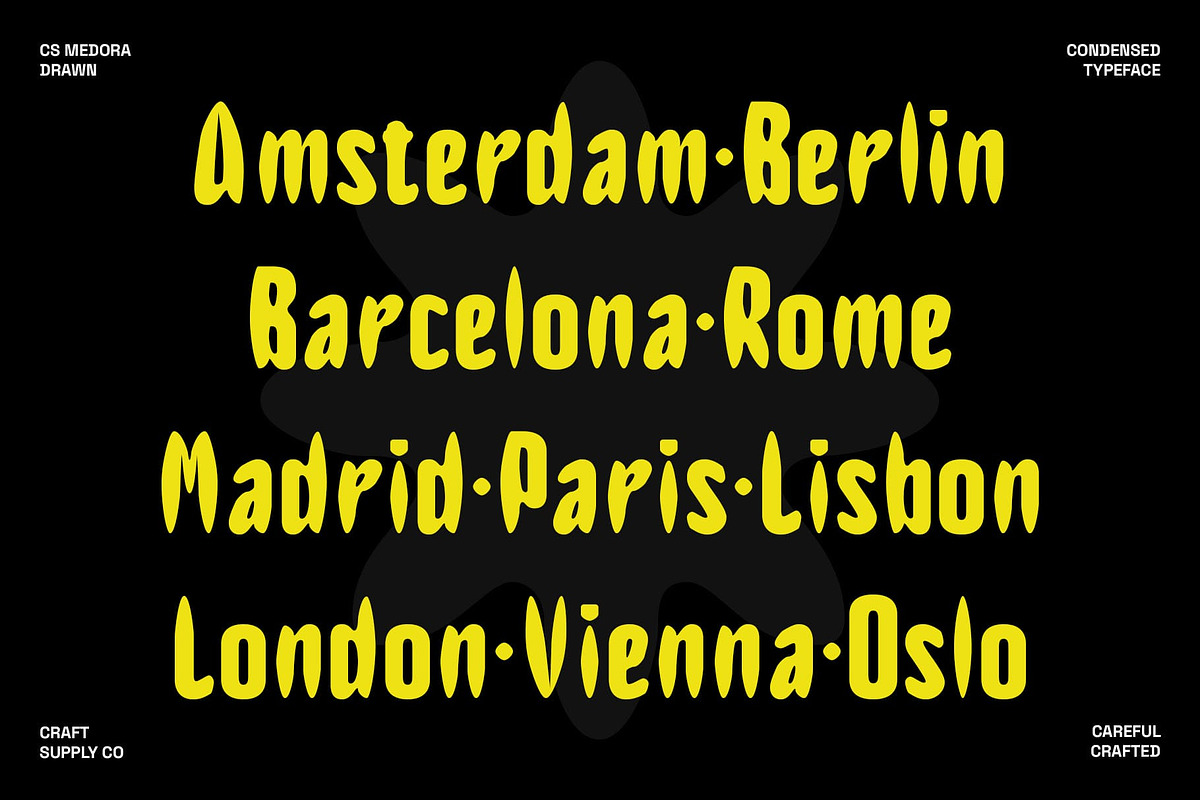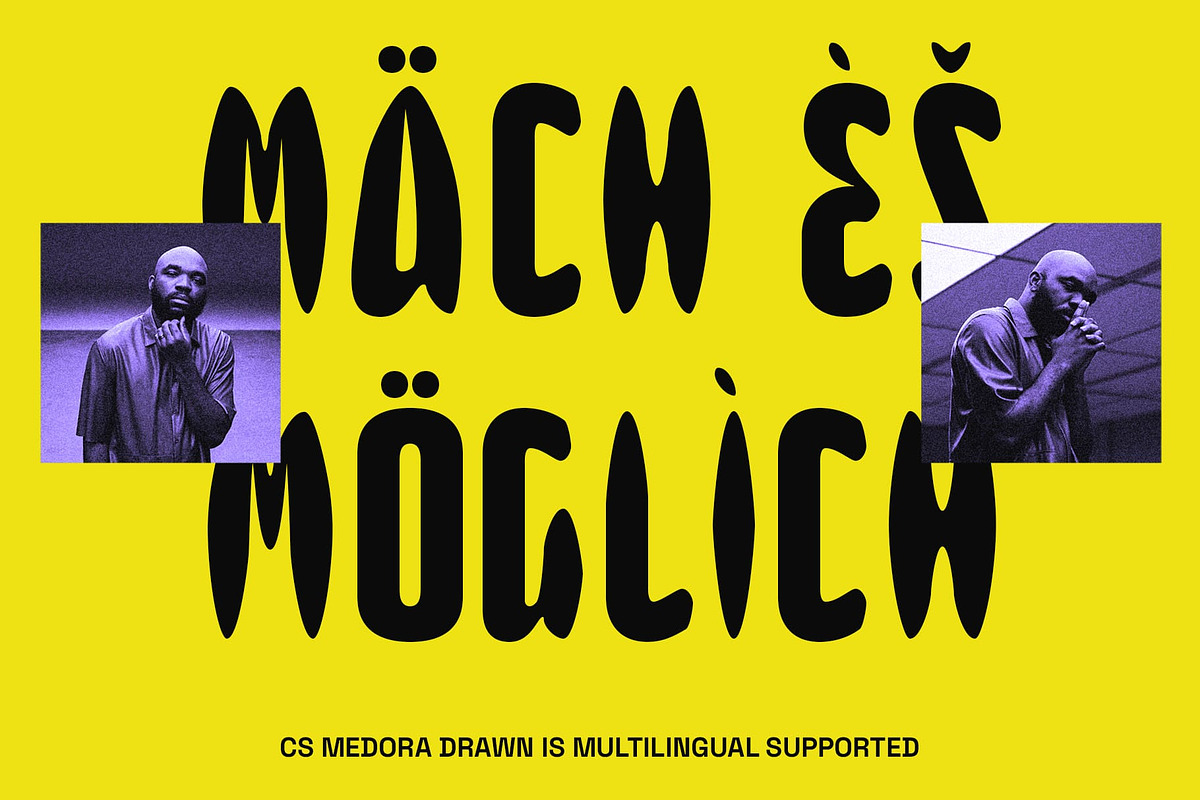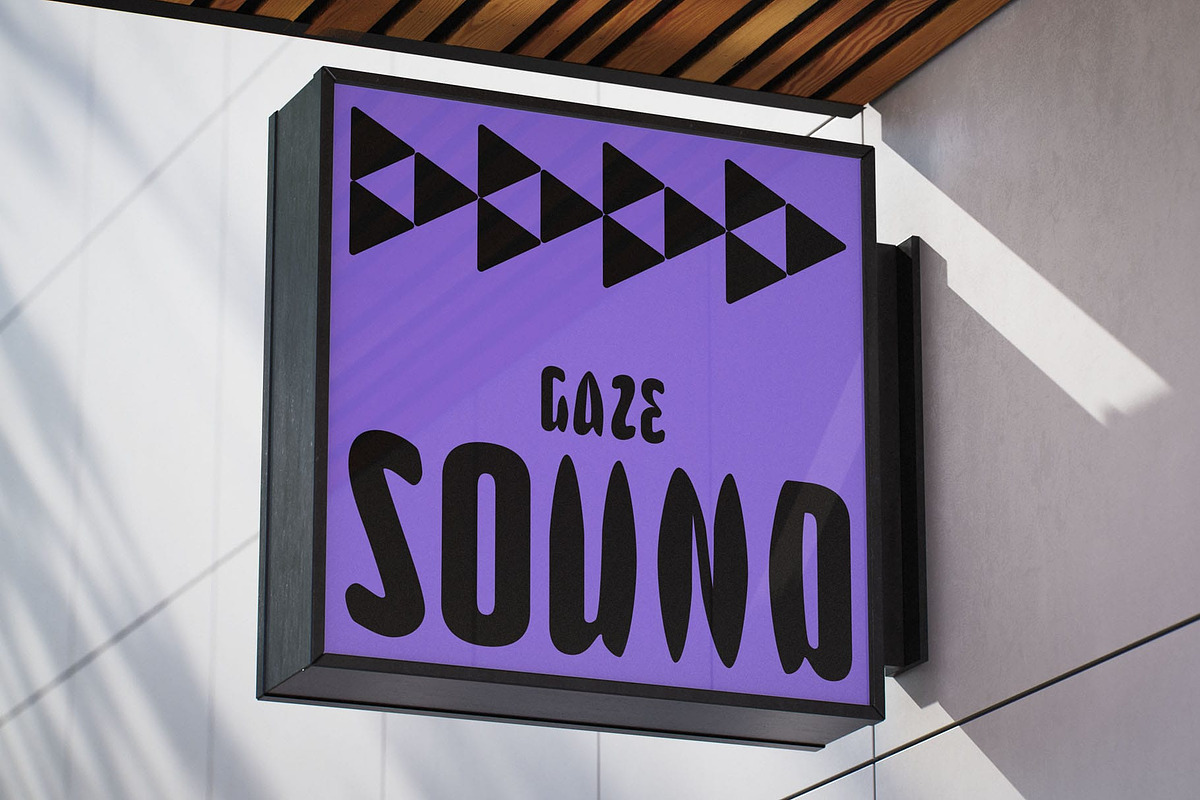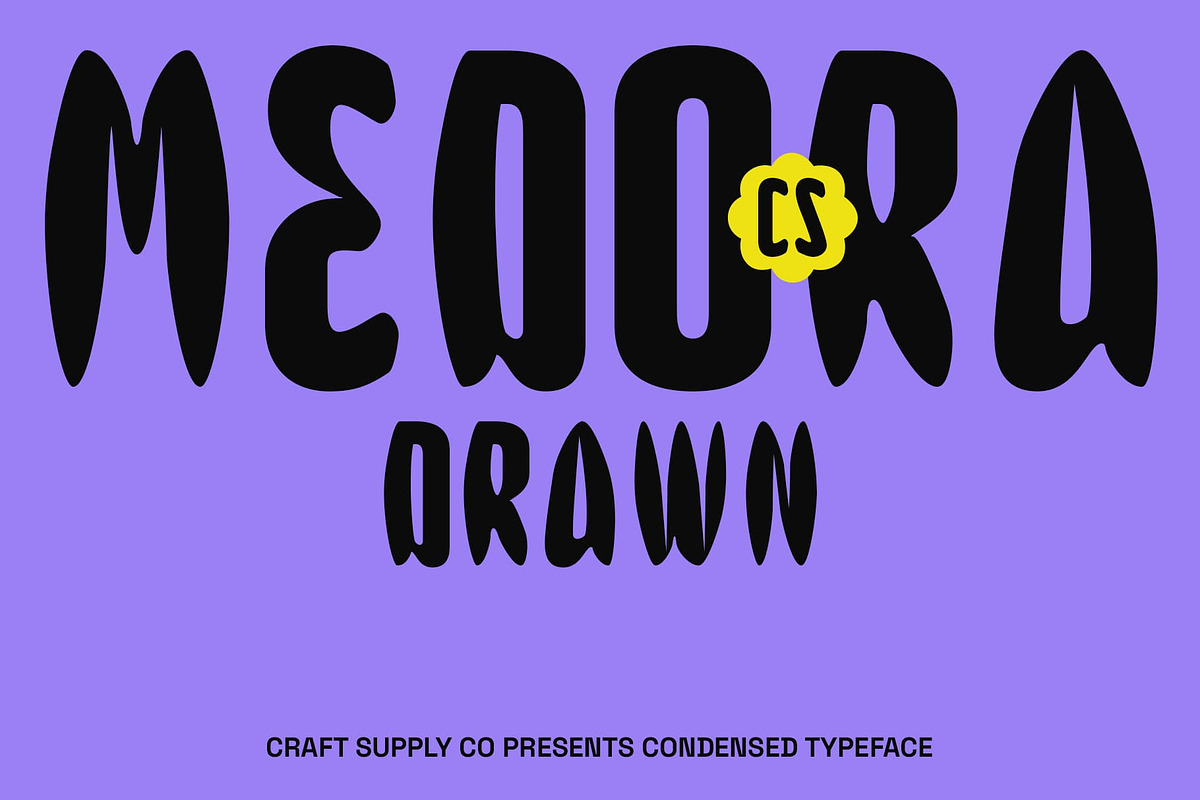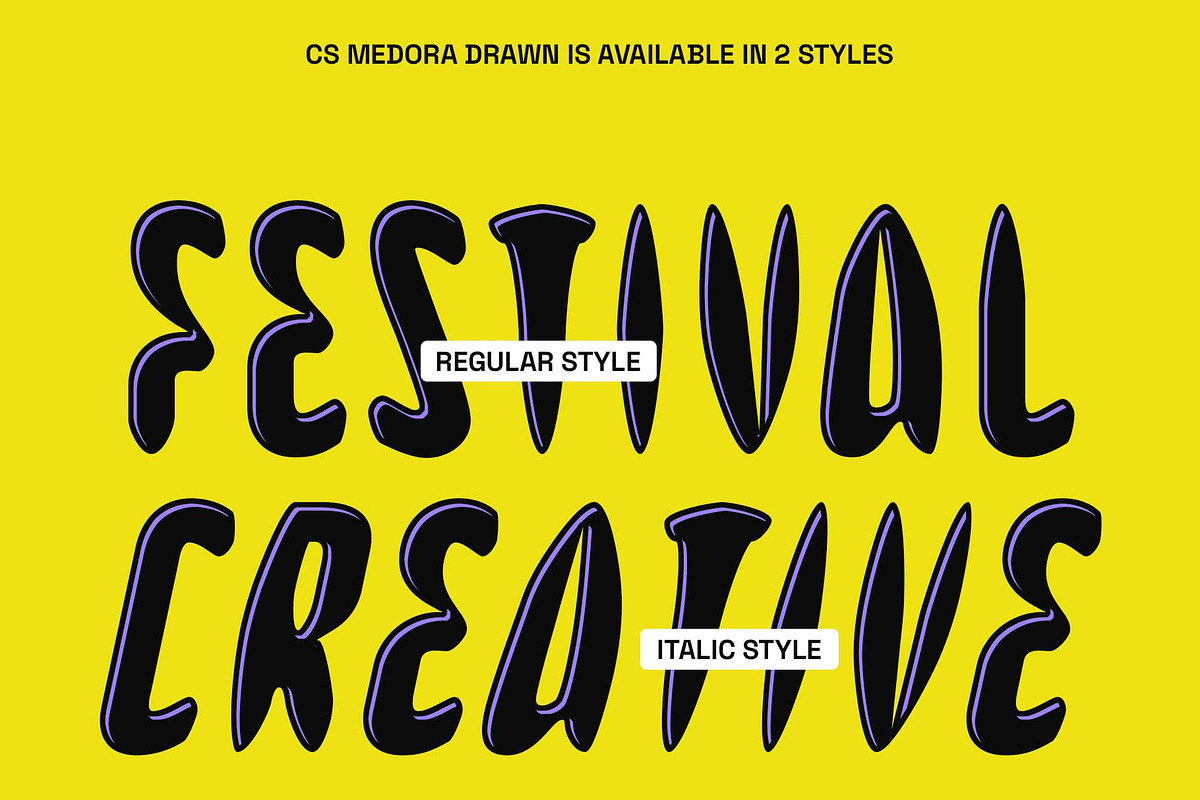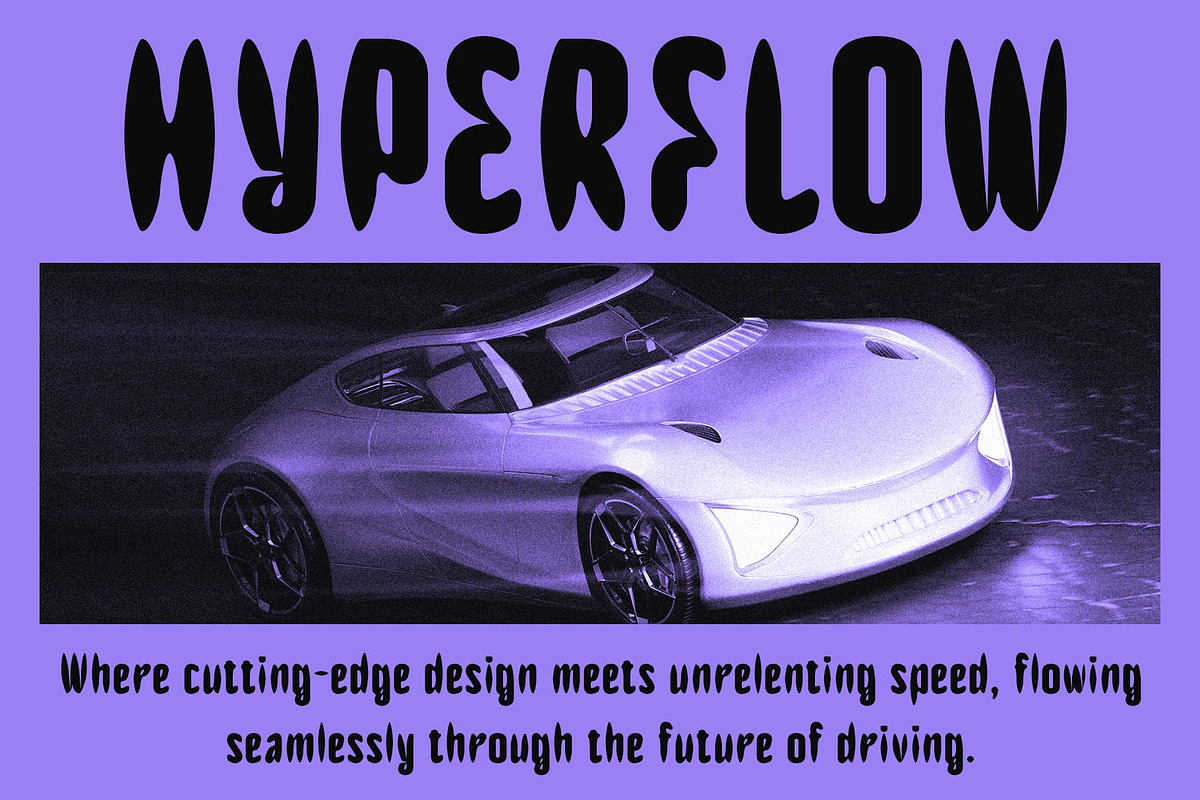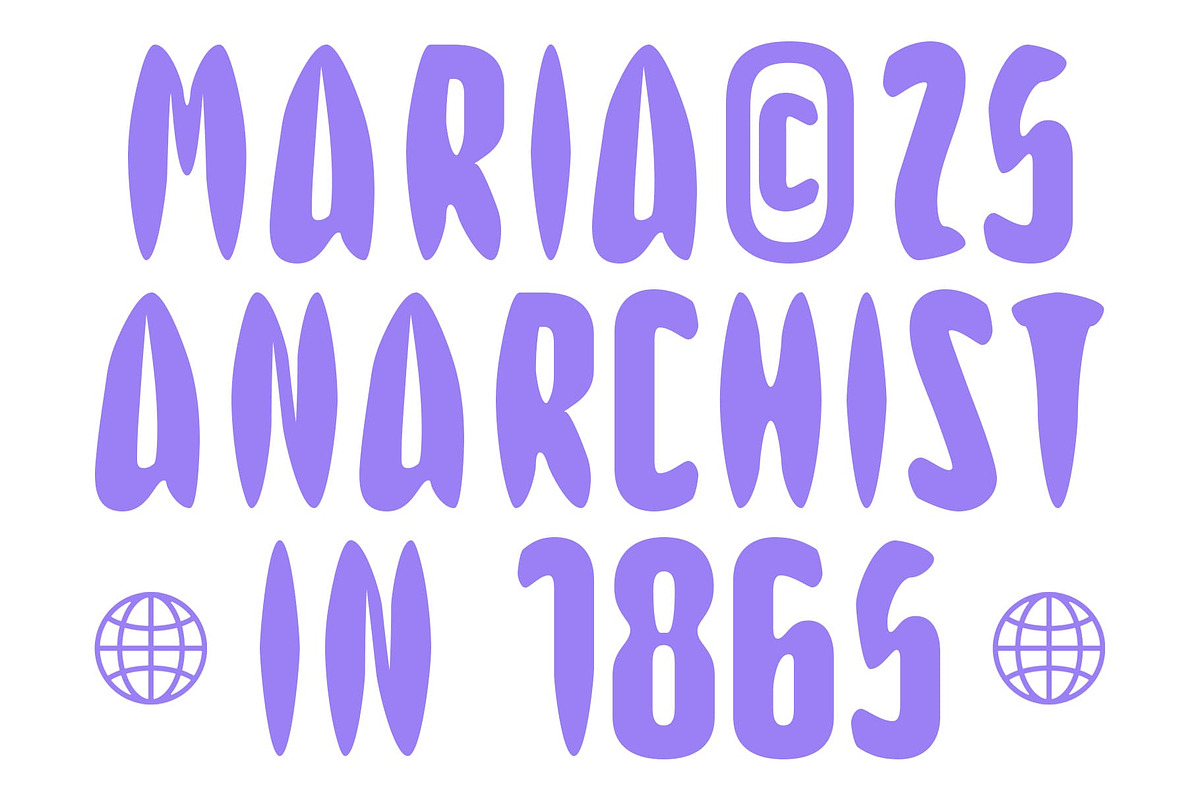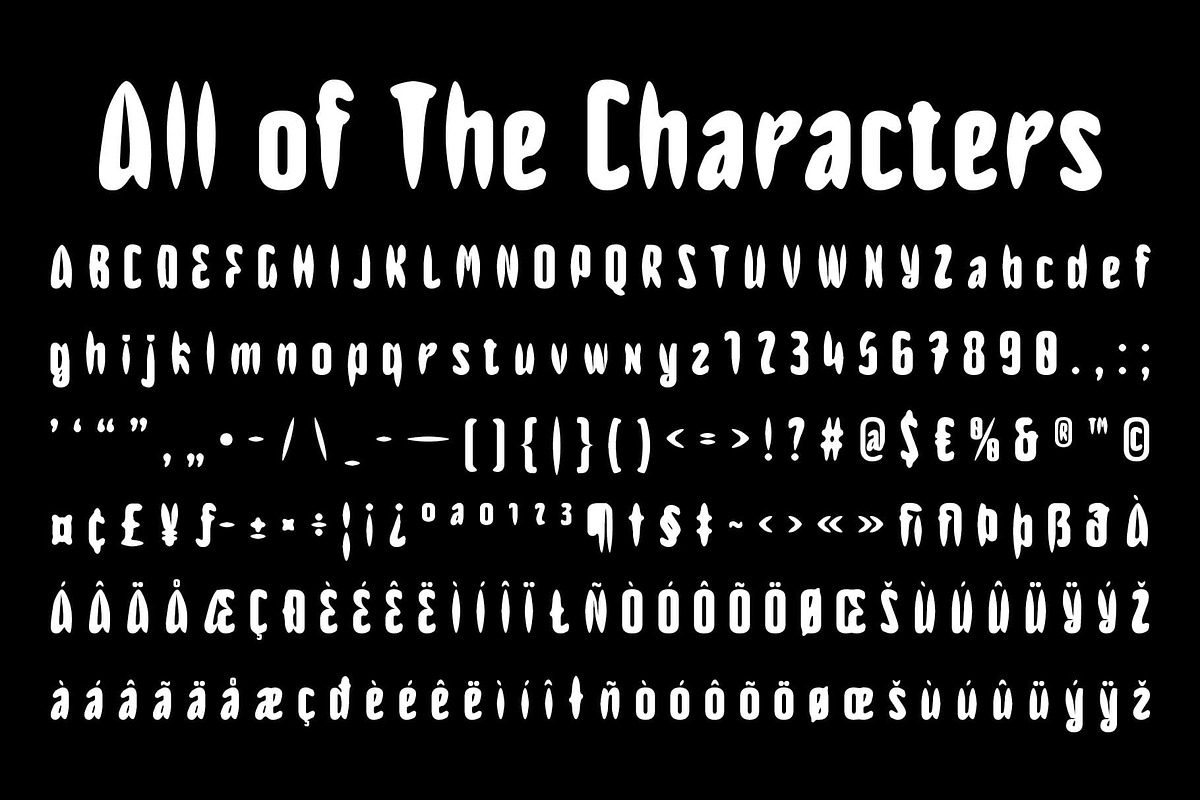
CS Medora Drawn
CS Medora Drawn – Bold, Condensed, and Expressive
Sleek and Condensed Design CS Medora Drawn is a modern sans serif font featuring clean, bold, and condensed letterforms. Its streamlined shapes provide a sleek, professional look while maintaining high readability, making it perfect for projects that demand clarity and impact.
Artistic Texture with Handmade Charm Enhanced with a subtle drawn effect, this minimalist yet expressive font adds a handcrafted touch, bringing personality and artistic flair. The textured strokes give each character depth and expressiveness, elevating simple sans serif forms into a distinctive visual statement.
Ideal for Professional and Creative Projects This versatile font is perfect for posters, logos, branding, editorial designs, and other creative projects seeking a modern yet unique appearance. Its bold, condensed structure allows for impactful headlines while the drawn texture adds a subtle, handcrafted character.
Modern, Readable, and Memorable This artistic and handmade font balances professionalism with artistic expression, ensuring your designs stand out without compromising clarity. Its combination of bold geometry and decorative detail makes it a reliable choice for designers looking to create a strong, modern, and visually engaging typographic identity.
A Typeface That Balances Strength and Style By blending condensed bold forms with a subtle hand-drawn effect, this unique and expressive font offers both readability and artistic expression. It’s perfect for designers seeking a modern, professional, and visually distinctive font.
- CS Medora Drawn Regular
- CS Medora Drawn Italic